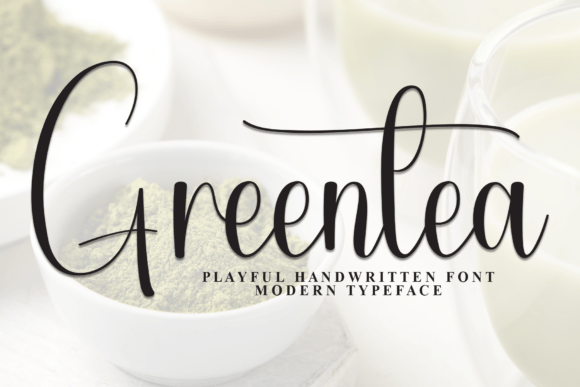
Where Creativity Meets Elegance: The Allure of Greentea Font
Have you ever found yourself brainstorming ideas for a new project, only to be struck by a sudden flash of inspiration? Perhaps it’s the perfect font that sparks your creativity and sets the tone for your design. For designers and artists alike, discovering the right typeface can be a game-changer. That’s where Greentea Font comes in – a stylish handwritten script that effortlessly blends modern elegance with a playful touch.
This versatile font is designed to bring a personal feel to any design, making it an ideal choice for logos, packaging, and invitations. With its fluid strokes and charming curves, Greentea Font adds warmth, sophistication, and creativity to every project. Whether you’re a seasoned designer or just starting out, this font is sure to elevate your work and leave a lasting impression.
Greentea Font Key Features
- Unique Characteristics: The Greentea font features a unique blend of modern and traditional elements, with a distinctive tea-inspired aesthetic.
Designer Review: Greentea Font
Overall, I think Greentea Font is a visually appealing font that works well in certain contexts. Here are some of its strengths:
- ✨ Unique design: Greentea Font has a distinct, hand-drawn feel that can add a touch of personality to your designs.
- ✨ Good legibility: Despite its whimsical design, Greentea Font is still easy to read, making it a great choice for body text.
- ✨ Versatile: Greentea Font comes in a range of weights and styles, making it easy to use in different design scenarios.
- ⚠️ Limited language support: Greentea Font may not support all languages, which could be a problem for designers working on multilingual projects.
- ⚠️ Not suitable for small text: Due to its unique design, Greentea Font may not be the best choice for small text sizes, as the details can get lost.
- ⚠️ May not be scannable: Greentea Font’s hand-drawn feel can make it difficult to scan quickly, which may not be ideal for designs that require a lot of information.
Overall, I think Greentea Font is a great choice for designers who want to add some personality to their designs. While it may have some limitations, its unique design and good legibility make it a solid option for the right project.
The Greentea Font is ideal for designs that require a modern, elegant, and eco-friendly feel. Use it for branding, packaging, and marketing materials. To get the most out of the font, use it in combination with other nature-inspired elements and colors. You can also experiment with different font sizes and styles to create visual interest.